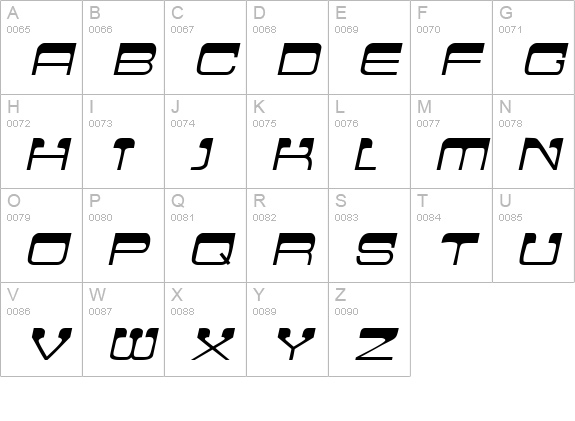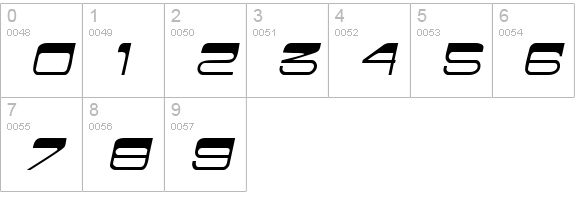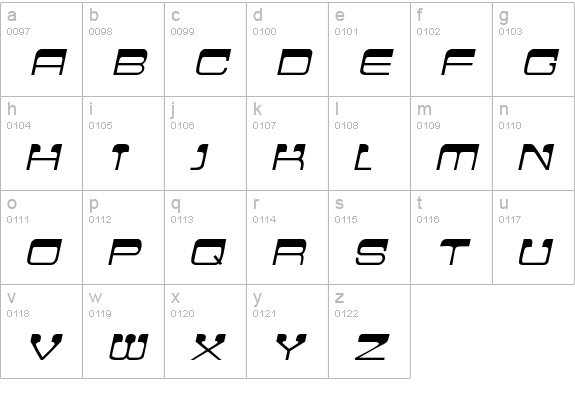
FlatTopSCapsSSK Italic Font Details
FlatTopSCapsSSK Italic is a distinctive, italic variant in the FlatTopSCapsSSK typeface family \xE2\x80\x94 well suited to design and typography projects.
FlatTopSCapsSSK Italic font is a stylish and modern typeface that adds a touch of sophistication to any design project. With its sleek lines and elegant curves, this font is perfect for creating eye-catching headlines, logos, and branding materials. The italic style adds a sense of dynamism and flair to your text, making it stand out from the crowd. Best of all, FlatTopSCapsSSK Italic font is completely free to use and is available for download at FontsMarket.com. Whether you're a designer looking to add a touch of class to your work or a business owner wanting to elevate your brand, this font is the perfect choice. Download it today and see the difference it can make in your projects!